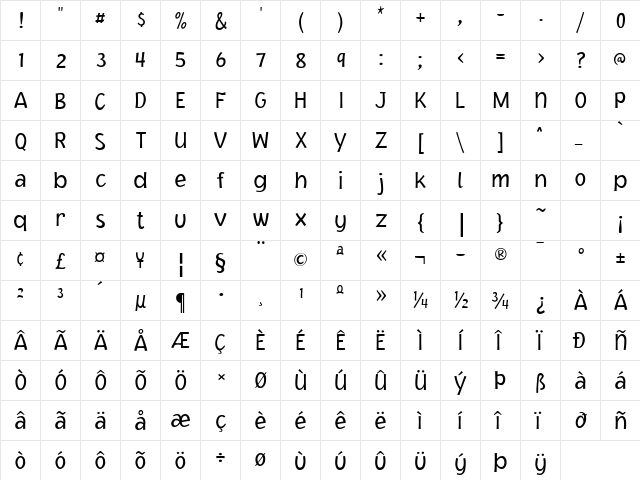
Jacoby ICG Light Regular
Design Context for Jacoby ICG Light Typeface
Jacoby ICG Light takes a measured approach to typography — its balanced proportions and neutral character make it a reliable workhorse for both digital and print work. Its slender proportions lend an understated elegance to any composition.